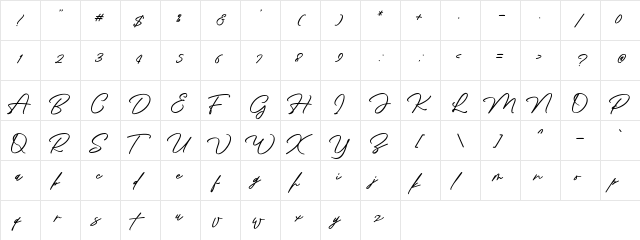
Pisonest Demo Regular
| Foundry | FADHIL |
| Designer | FADHIL |
Design Context for Pisonest Demo Typeface
Pisonest Demo is a composed and adaptable typeface that performs quietly and consistently across a wide range of design contexts.